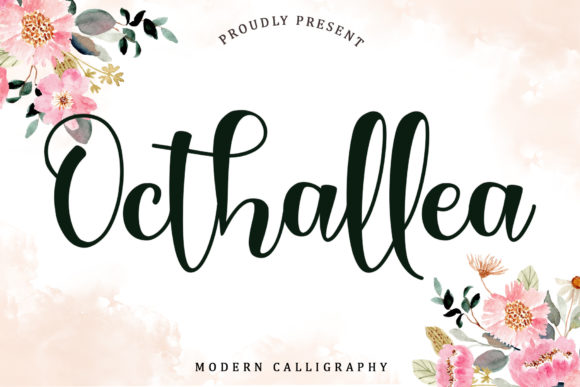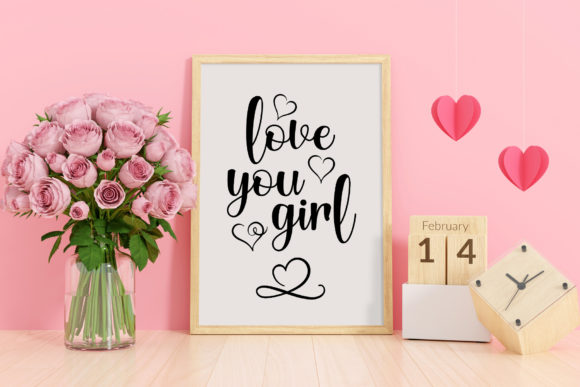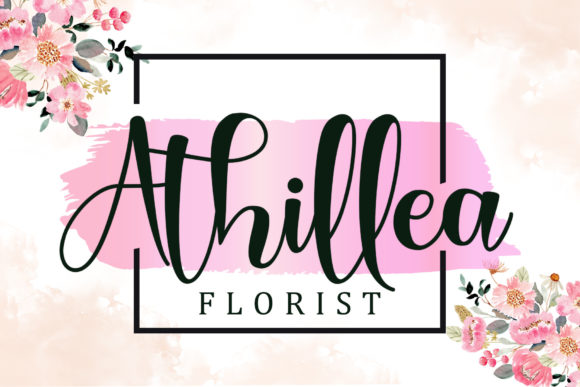
About Octhallea Font
Octhallea is a modern handwritten font perfect for greeting cards, wedding invitations, signs, and many more. Your fonts’ library will look amazing with this new addition, as it has the power to make your work a beautiful piece of art!